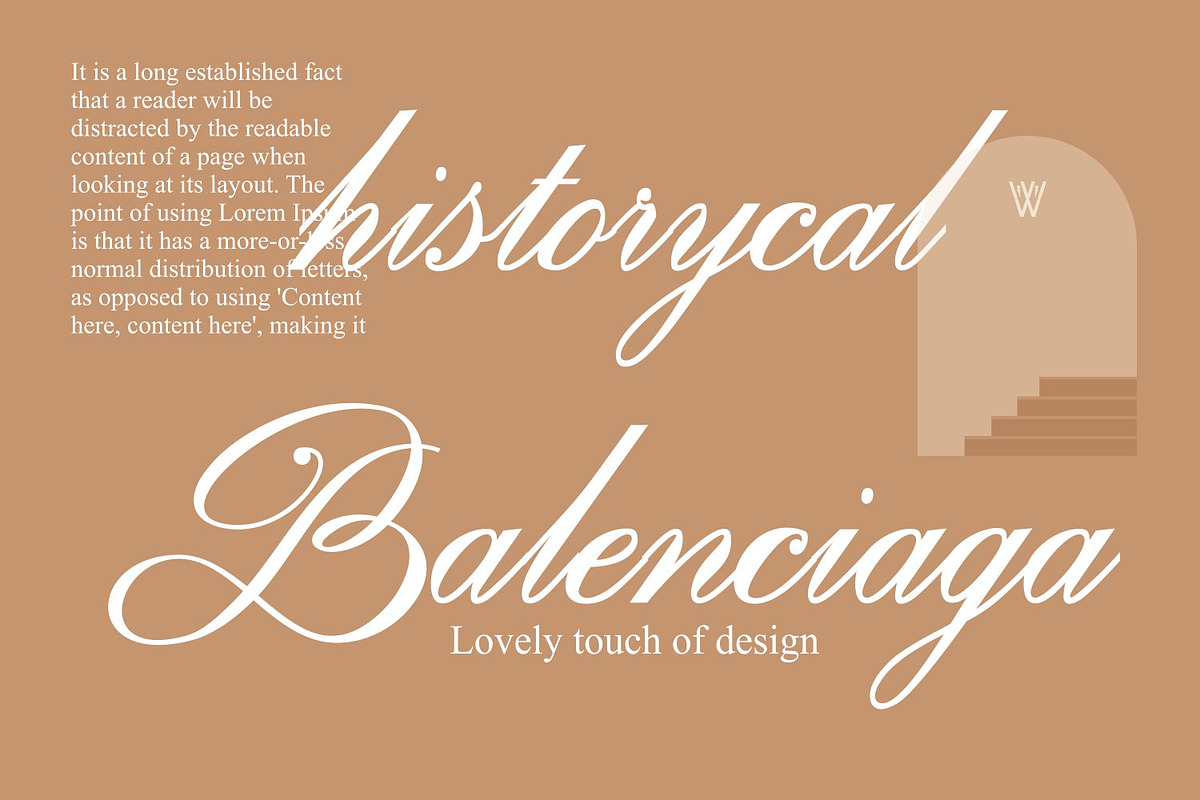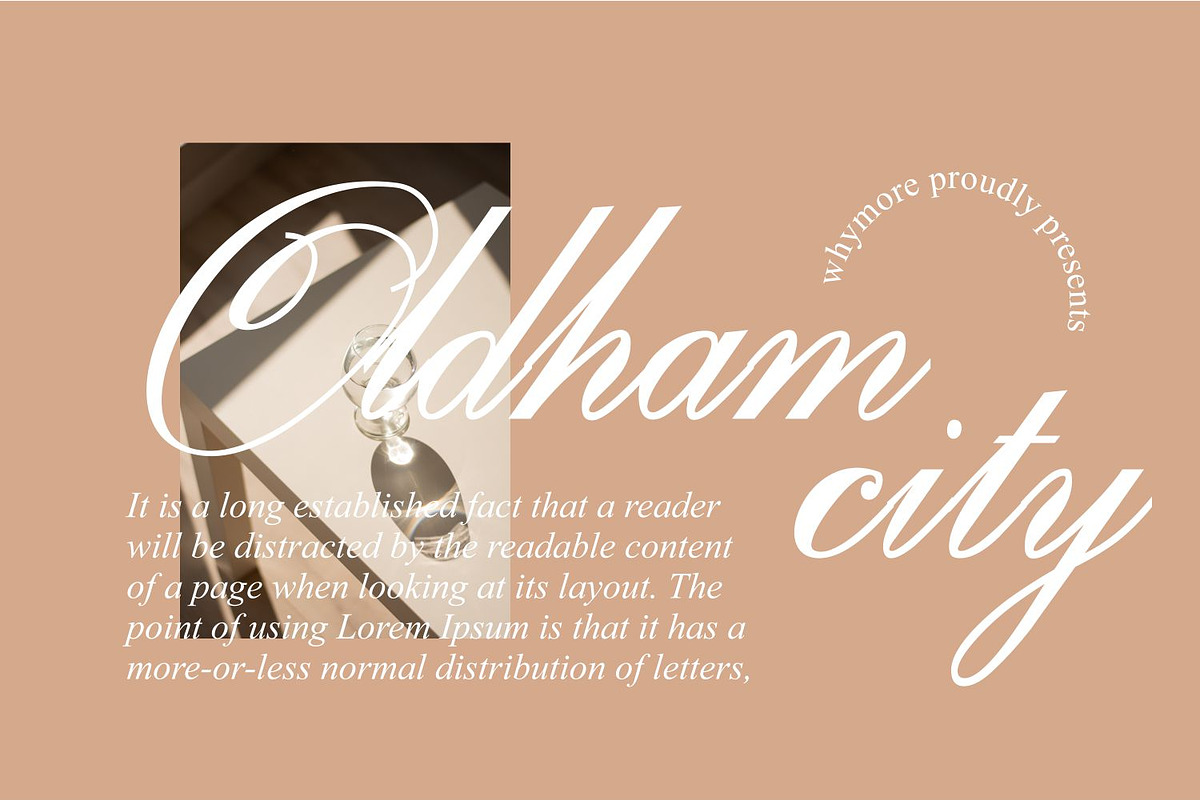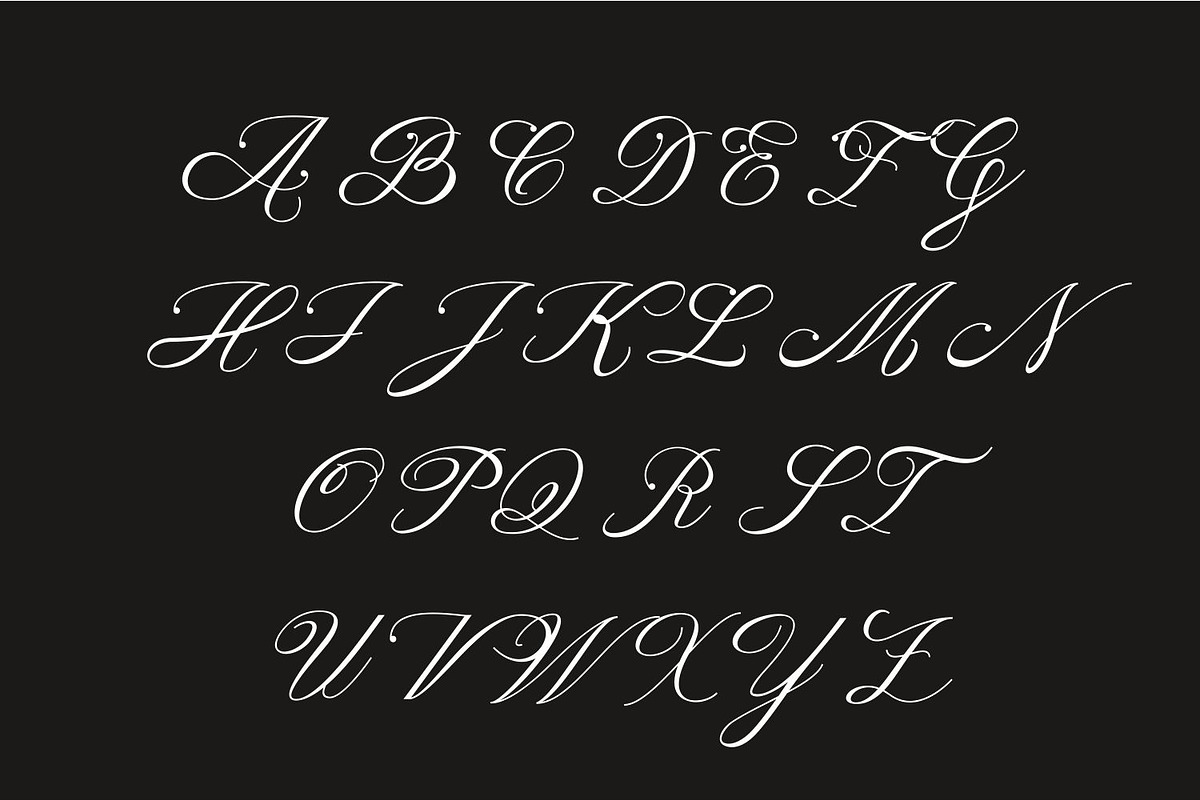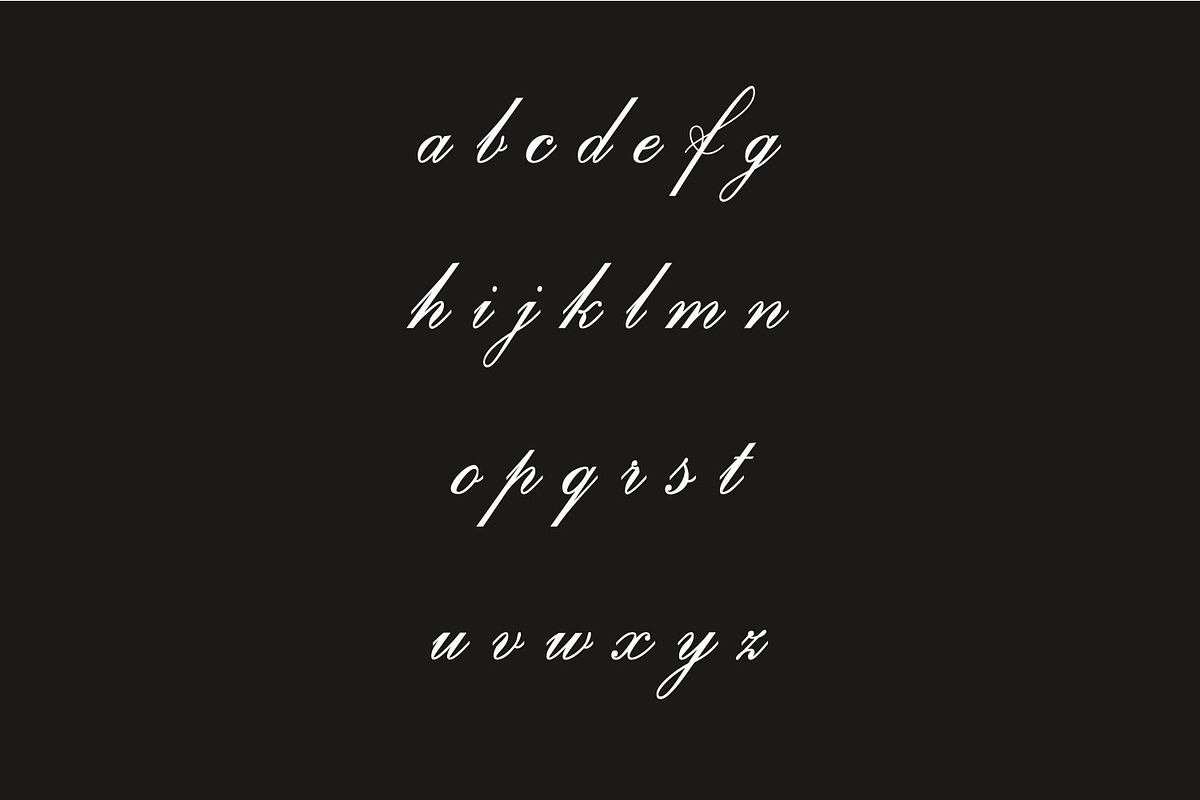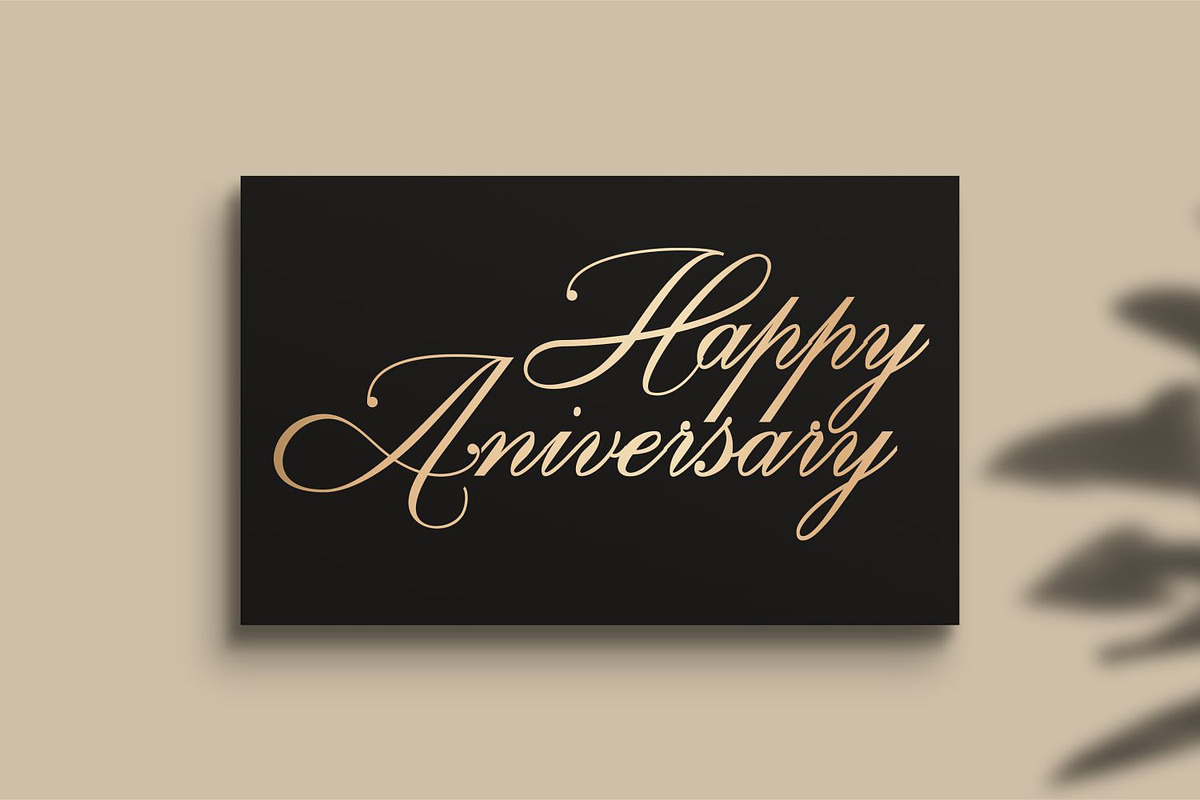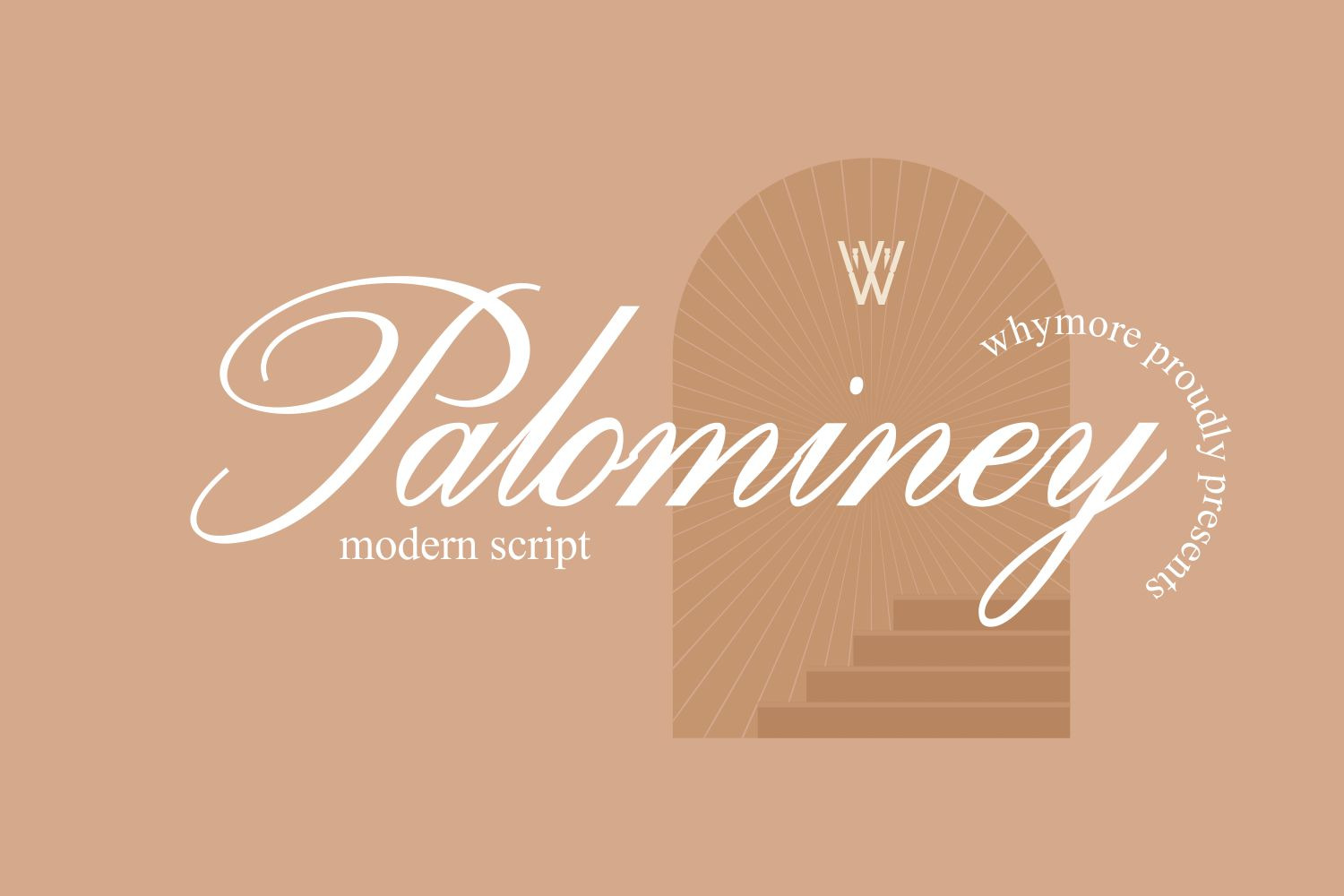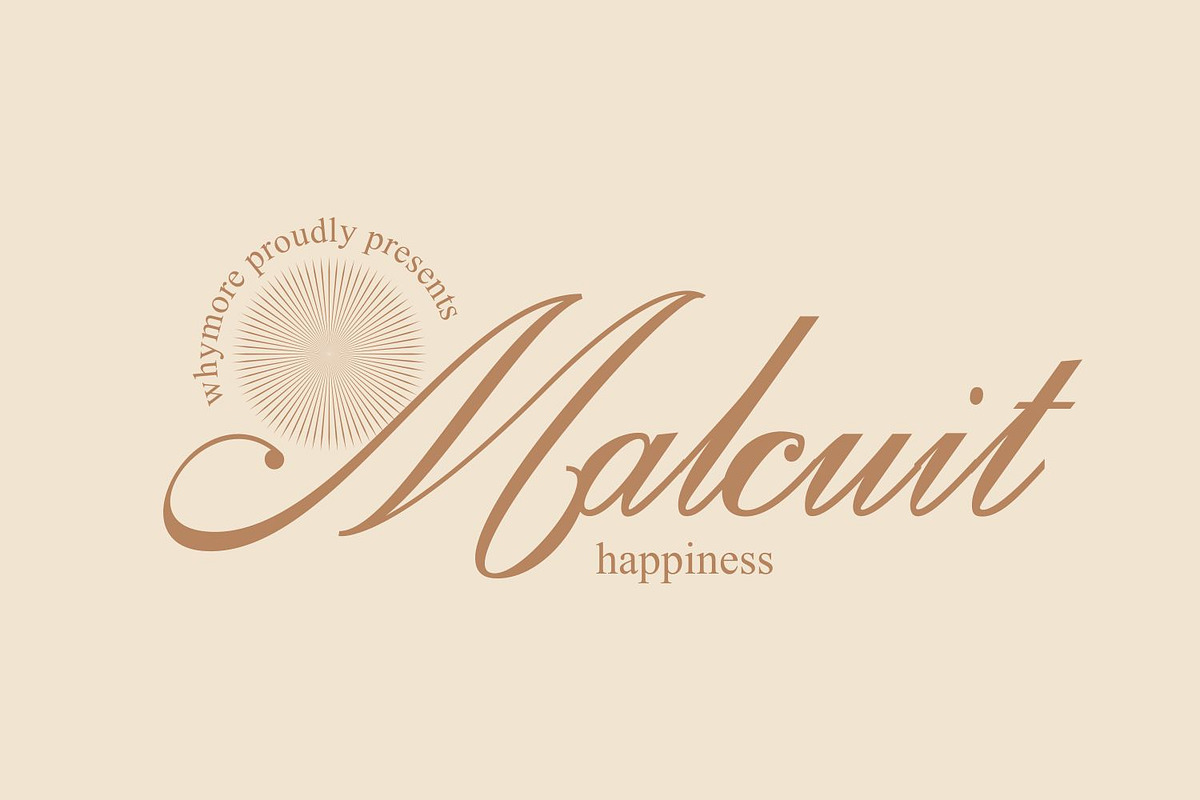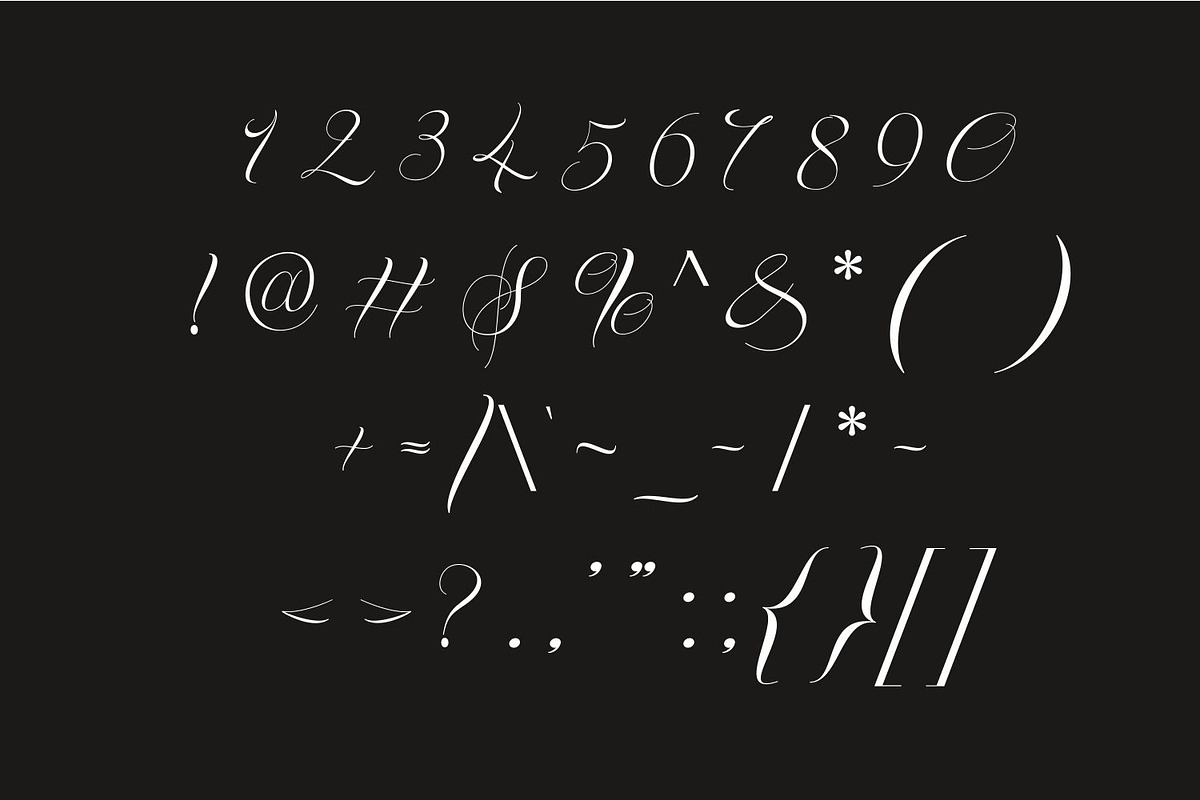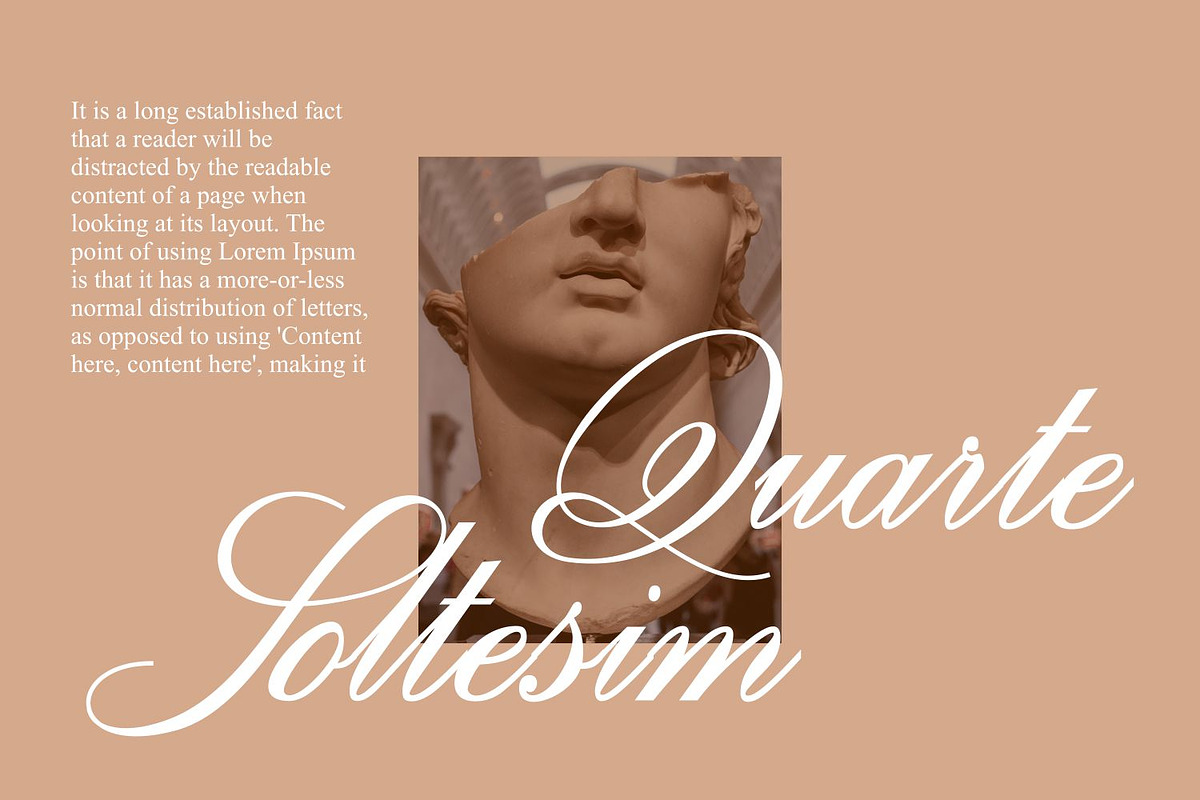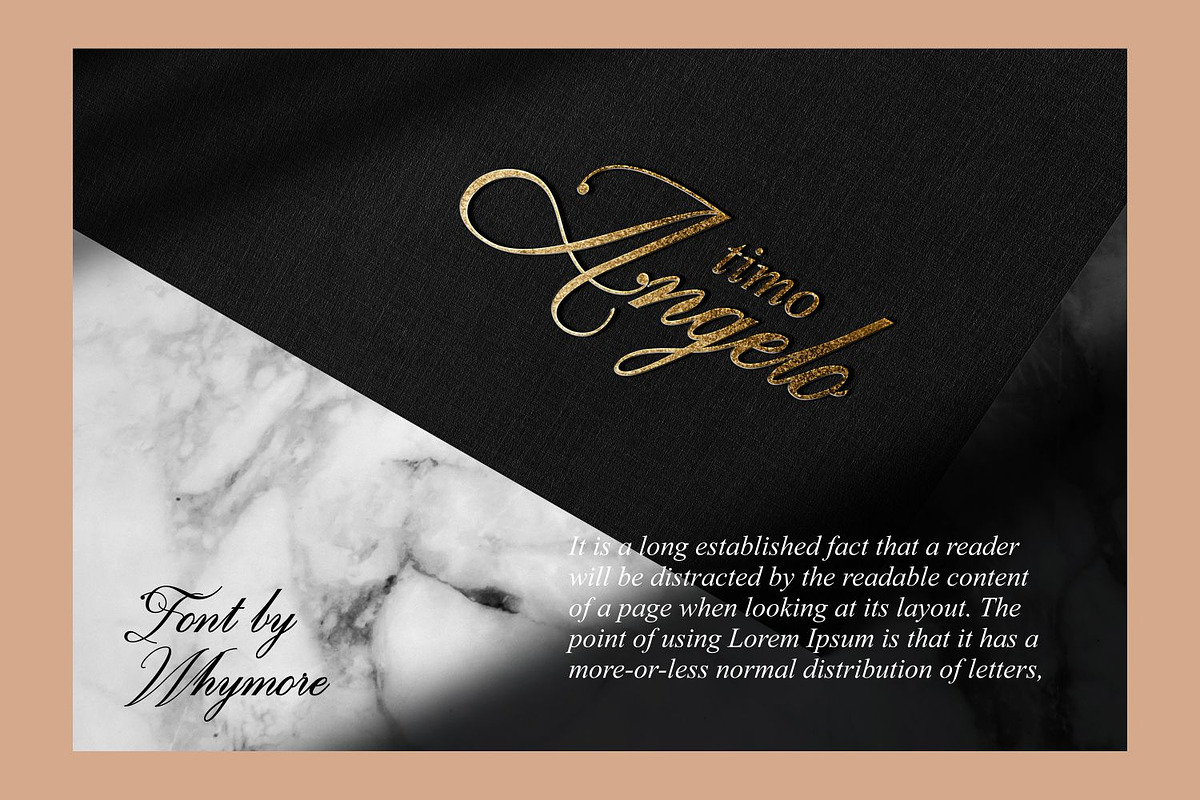
Palominey Wedding Script Font
The Palominey Font is a graceful script typeface that exudes classic elegance and charm. With its fluid strokes and intricate details, this font brings a sense of sophistication to any design project. Whether you’re crafting wedding invitations, branding materials, or decorative elements, the Palominey Font adds a touch of timeless beauty that elevates your work. Its versatile nature makes it suitable for both formal and casual applications, ensuring your designs shine with a touch of classic refinement.